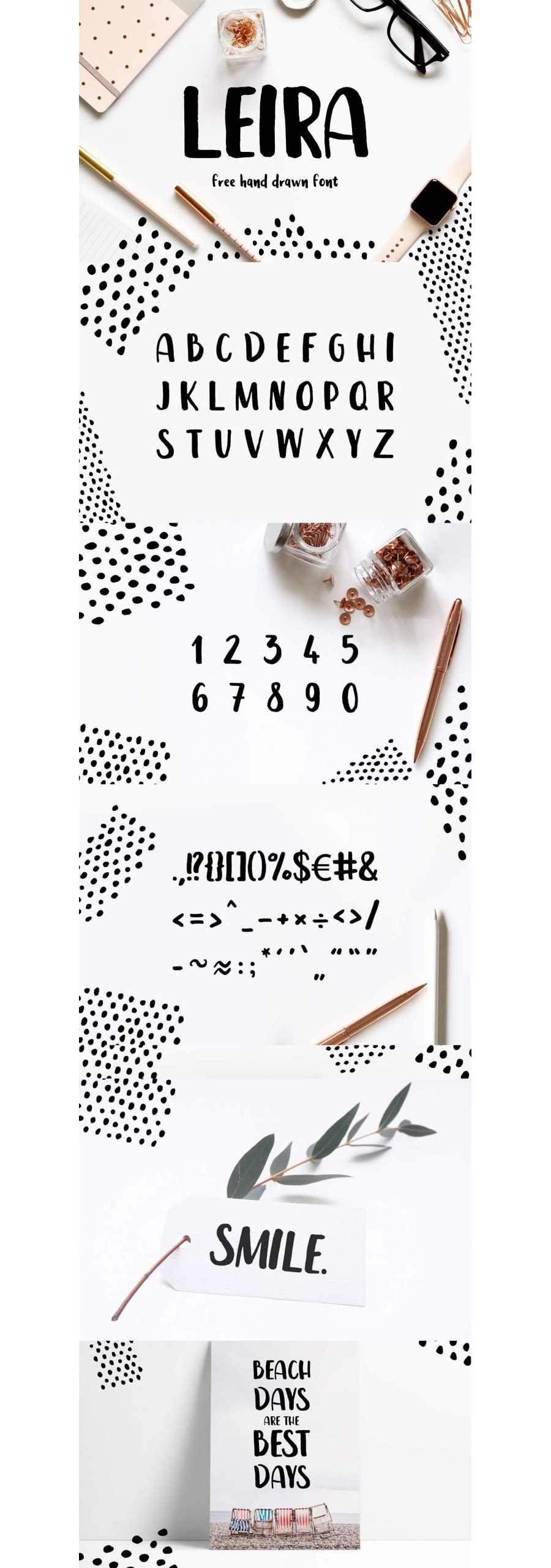
Leira Free Handdrawn Brush Font
Hello, we are very happy to present You with the newest Leira Free Handdrawn Brush Font by Gatis Vilaks from WildOnes Design. The font comes with bold features, it will stand out and be easy to read. It’s great for creating identities, headlines, logos, posters, cards, packaging design, etc. Basically, everywhere where You need to put something noticeable.